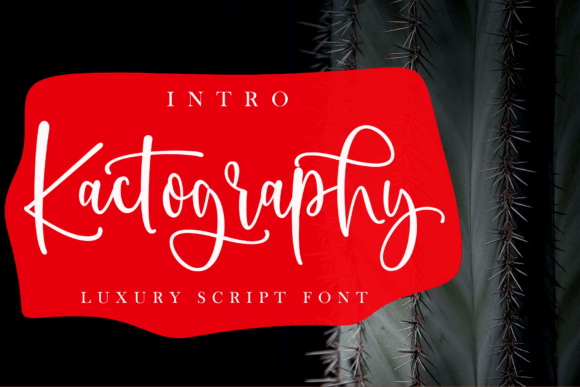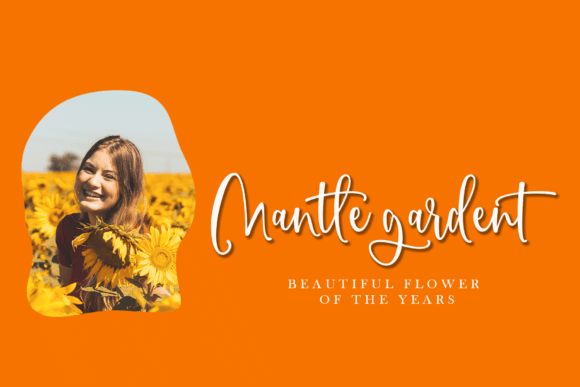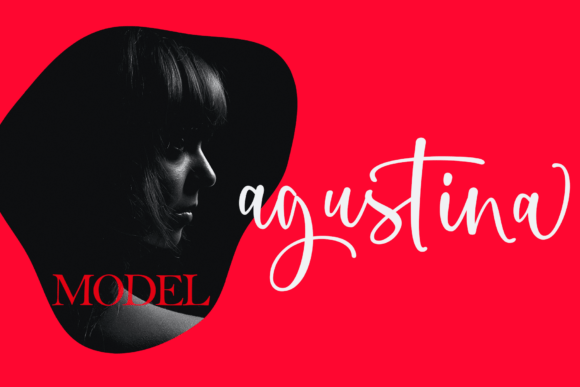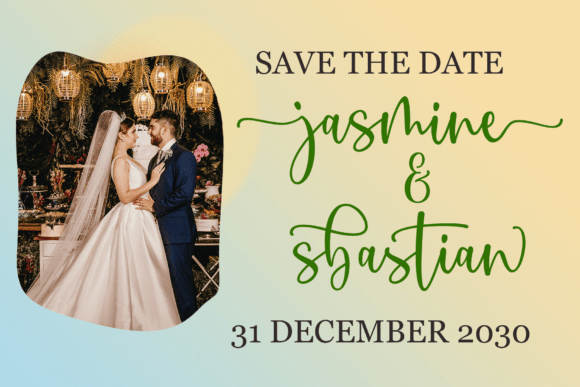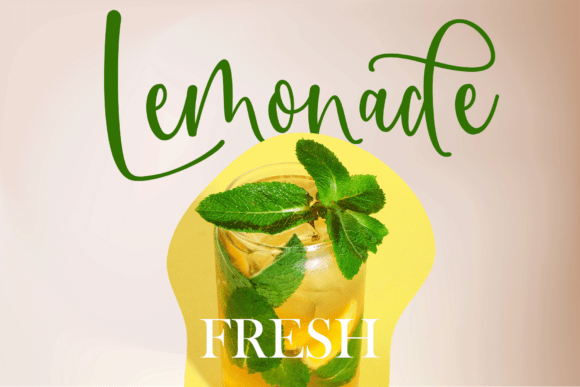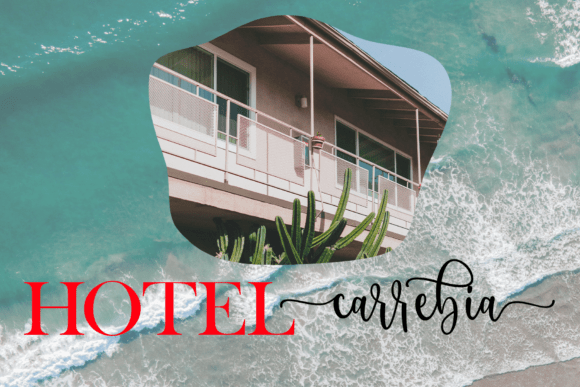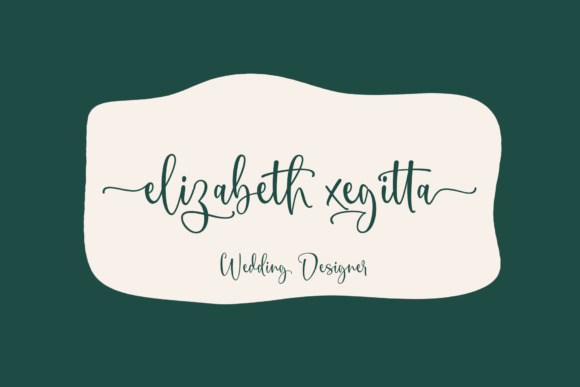
The Art of Elegant Expression: Introducing Kactography Font
Have you ever sat down with a brush and a blank canvas, feeling the thrill of creating something entirely new? The strokes of your brush dance across the paper, bringing your vision to life. It’s a moment of pure artistic expression, and one that many designers can relate to.
For those who crave that same sense of creative freedom in their digital design work, we introduce the Kactography Font – a stylish script font that embodies the essence of hand-painted calligraphy with a modern twist. With its fluid brush strokes, dynamic curves, and expressive letterforms, this font is the perfect addition to any designer’s toolkit.
Whether you’re working on a logo, invitation, or social media graphic, the Kactography Font adds a touch of sophistication and elegance that’s hard to resist. Its natural flow and vibrant character make it a valuable asset for designers looking to elevate their designs and make a lasting impression.
Kactography Font Key Features
- Font Family: Kactography Font includes 4 unique font styles: Regular, Bold, Italic, and Bold Italic, offering versatility for various design applications.
- Unique Characteristics: The font features a unique blend of geometric and organic elements, resulting in a distinctive and eye-catching aesthetic.
Kactography Font Review
Overall, I’d say Kactography is a beautiful and unique font. Here are some things that work well: ✨
- Uniqueness: Kactography stands out from other fonts due to its distinctive style and flair.
- Readability: The font is well-designed for body text, making it perfect for articles, blog posts, and even books.
- Variety: The font family includes multiple weights, from light to bold, offering flexibility for different design needs.
However, there are some limitations: ⚠️
- Headline limitations: While the font is beautiful, it may not be the best choice for headlines due to its relatively small x-height.
- Older font rendering: On older systems, the font may render differently than intended, potentially affecting its overall appearance.
Overall, I think Kactography is a great choice for designers looking for a unique, readable font. With a little caution regarding headline usage and older font rendering, it can be a fantastic addition to any project.
Getting the Most Out of Kactography Font
To get the most out of the Kactography font, try the following:
Pair it with bold or italic fonts for emphasis.
Use it for titles and headings to create a visually appealing design.
The Kactography font is commonly used for:
Event branding and marketing materials.
Artistic and creative projects that require a unique and elegant font.